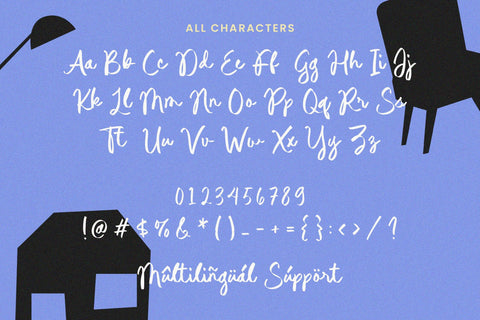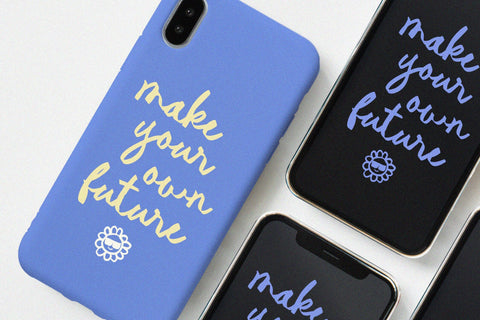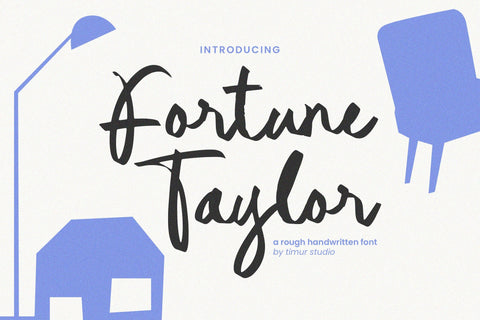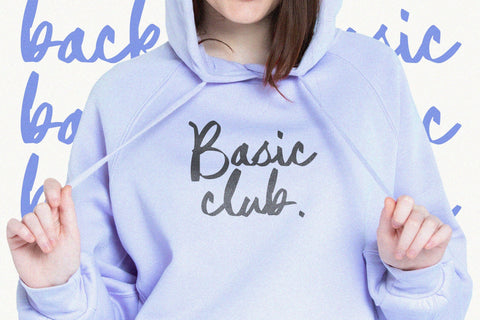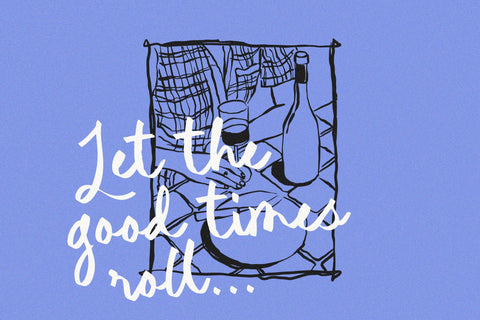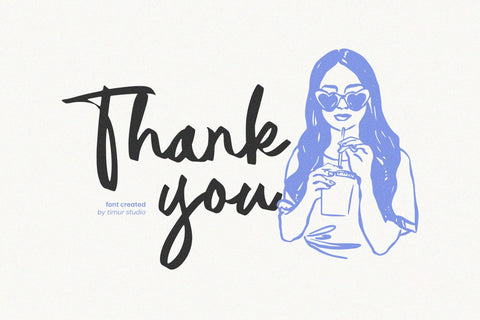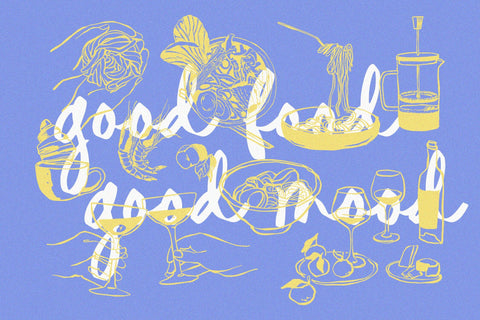
Fortune Taylor - Rough Handwritten Font
Fortune Taylor is a Rough Handwritten Font
This font is a embodies the rugged allure of handcrafted authenticity. Its rough-hewn strokes echo the spontaneity of ink on parchment, evoking the spirit of untamed adventure. With each letter bearing the mark of individuality, this font invites you to embrace imperfection and celebrate the beauty of the handwritten. Perfect for projects seeking a touch of raw charm and vintage nostalgia, Fortune Taylor adds character to logos, signage, and design ventures, guiding your audience on a journey through time and imagination.
Fortune Taylor Font also supports multilingualism